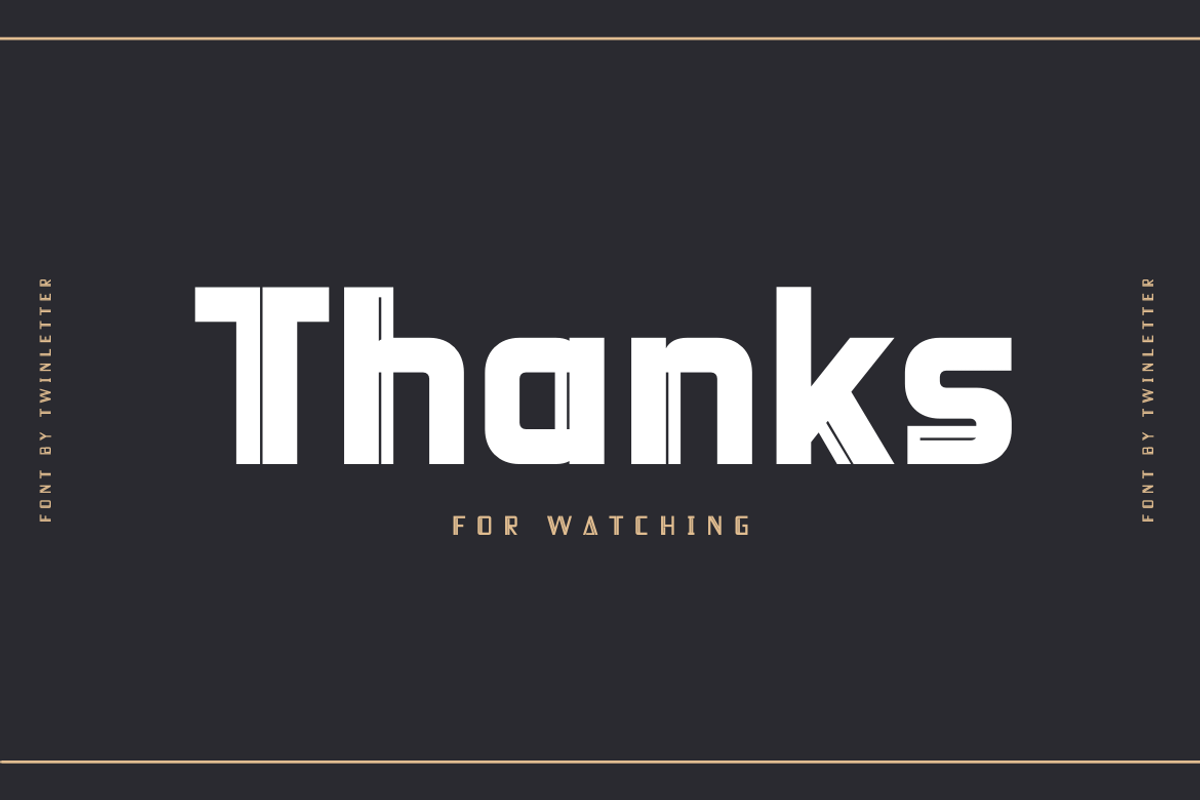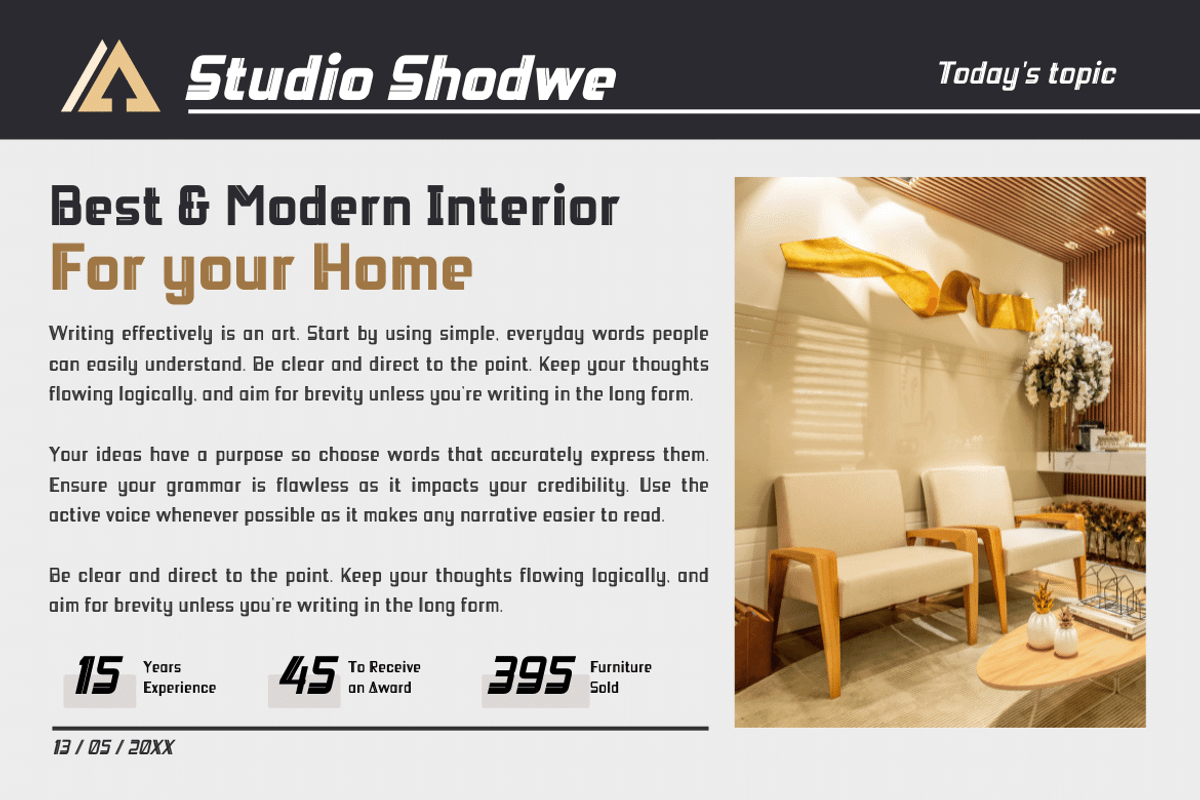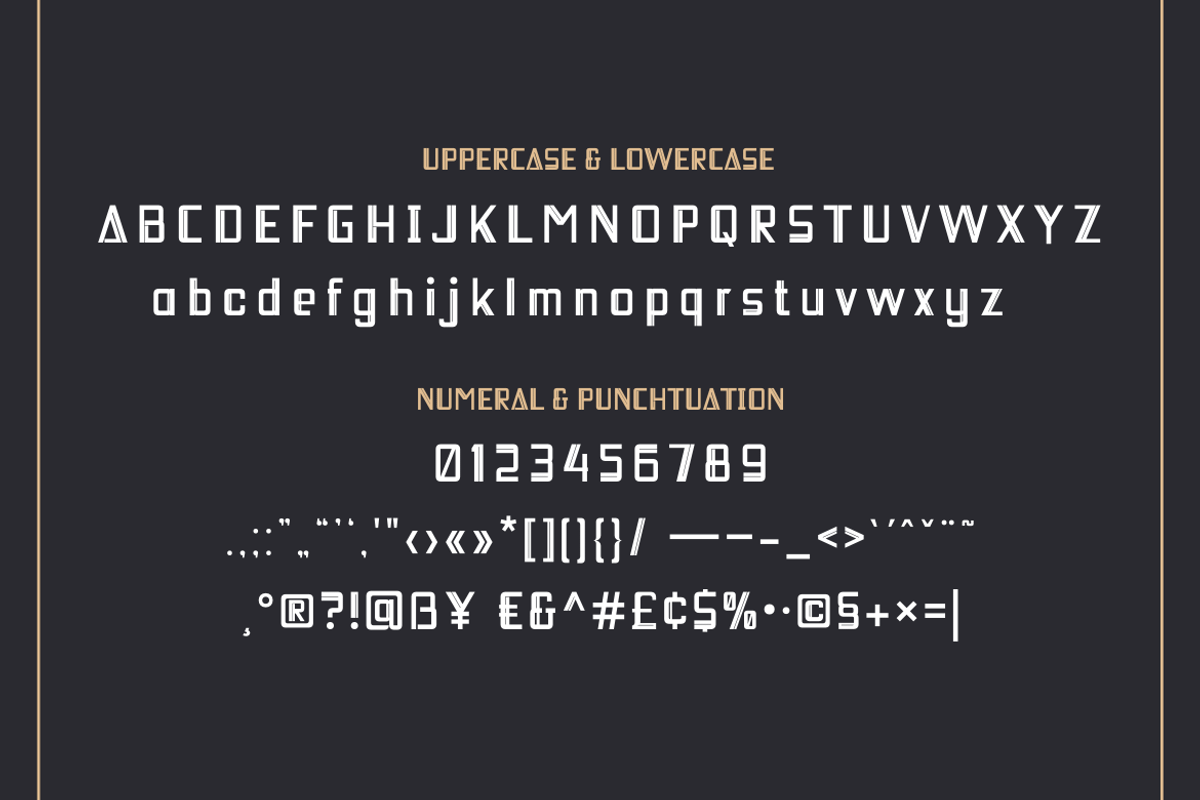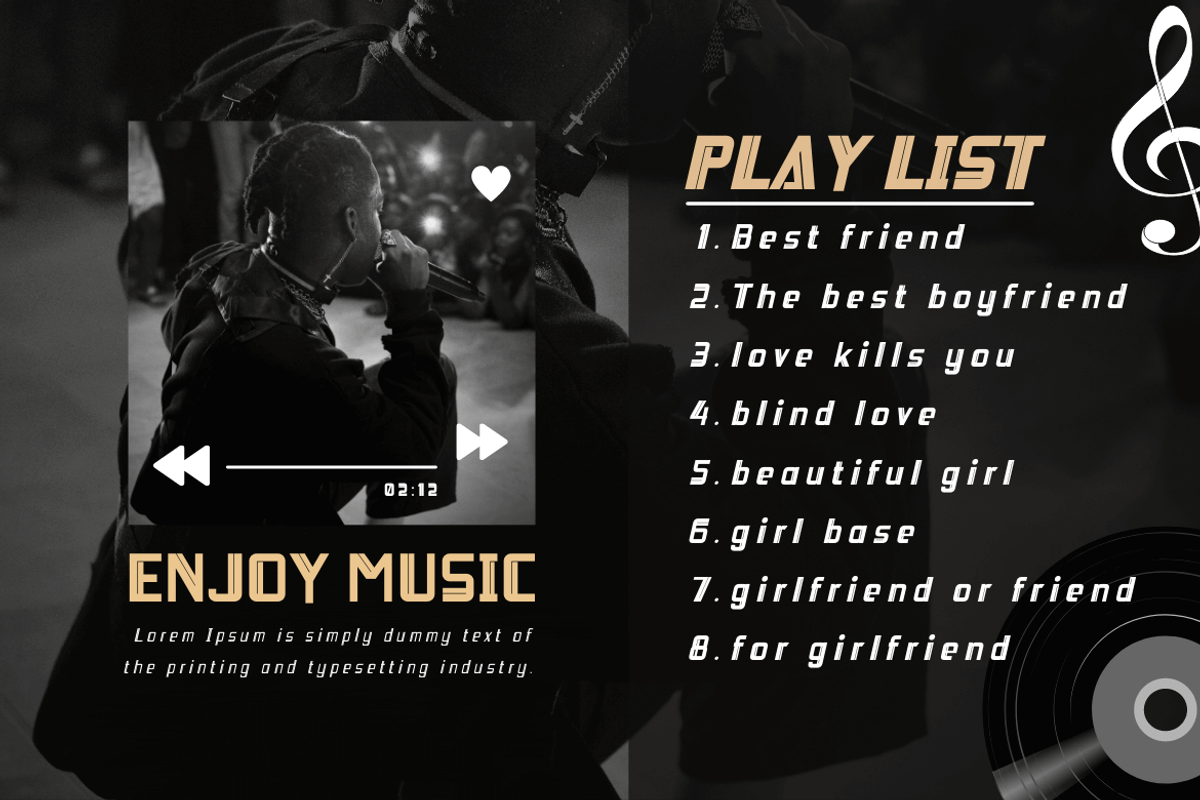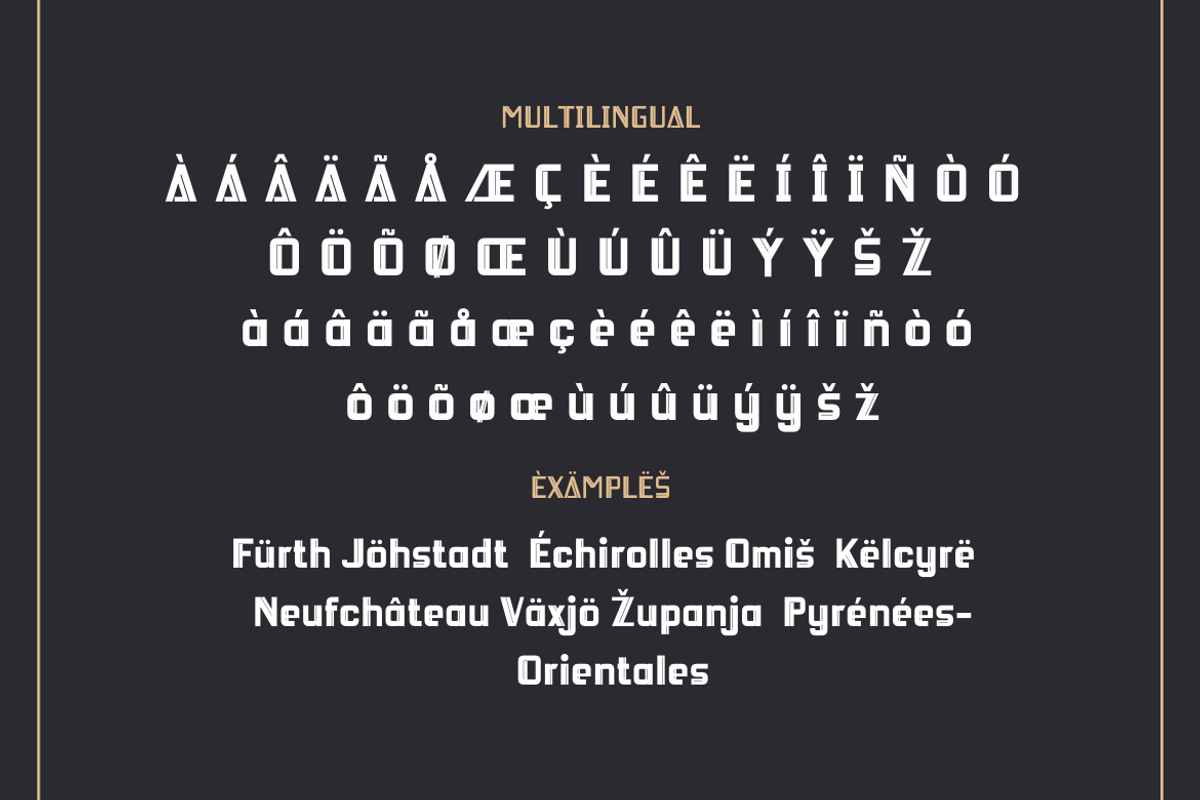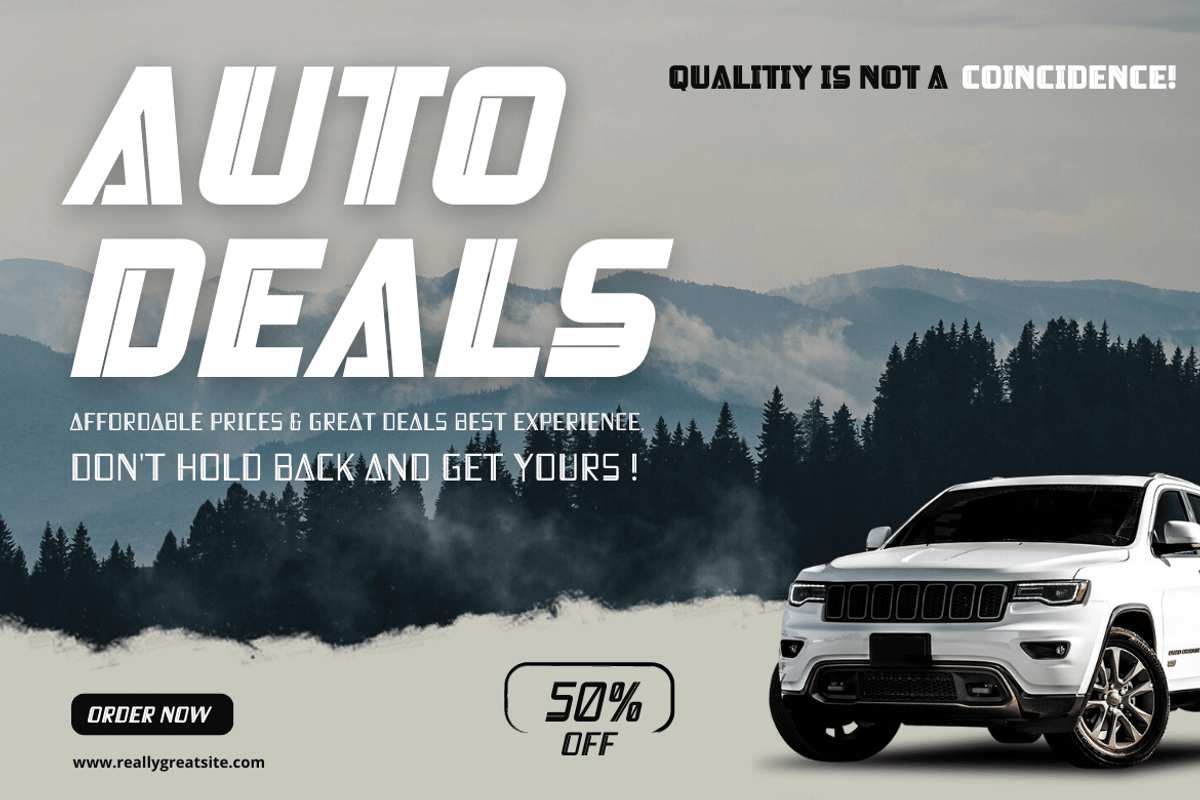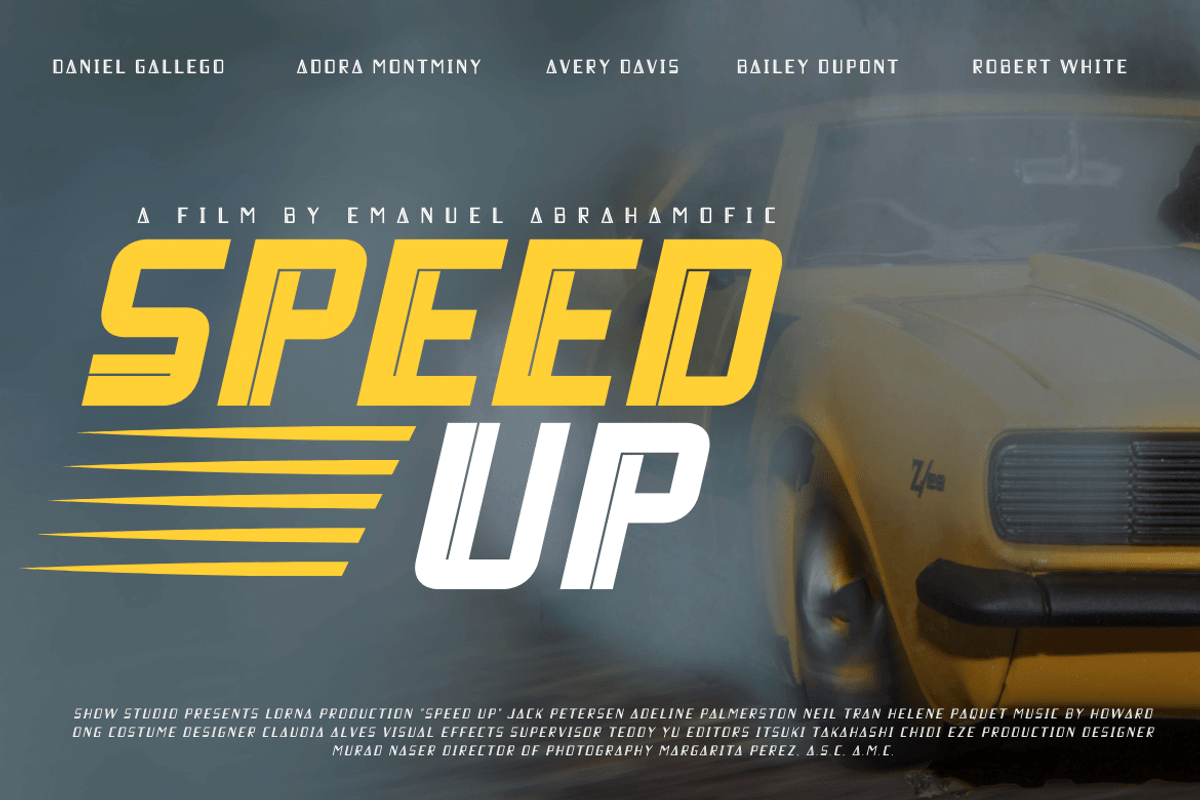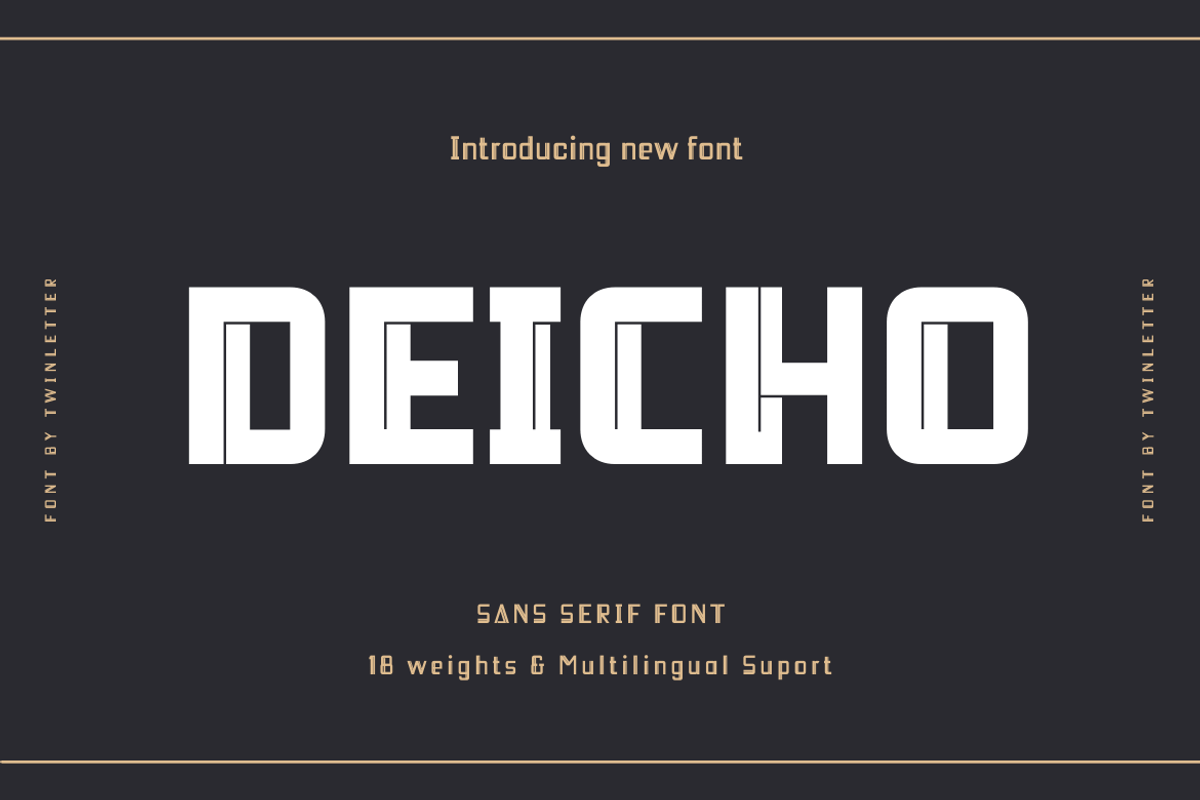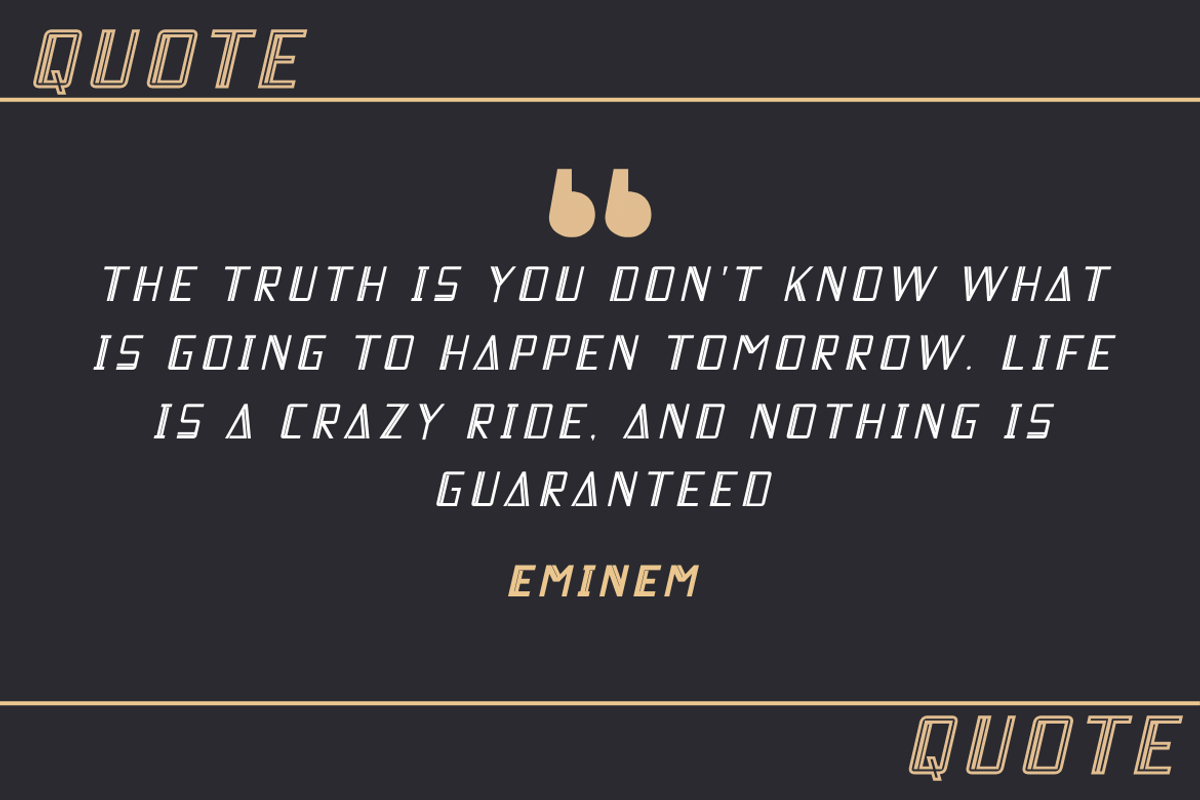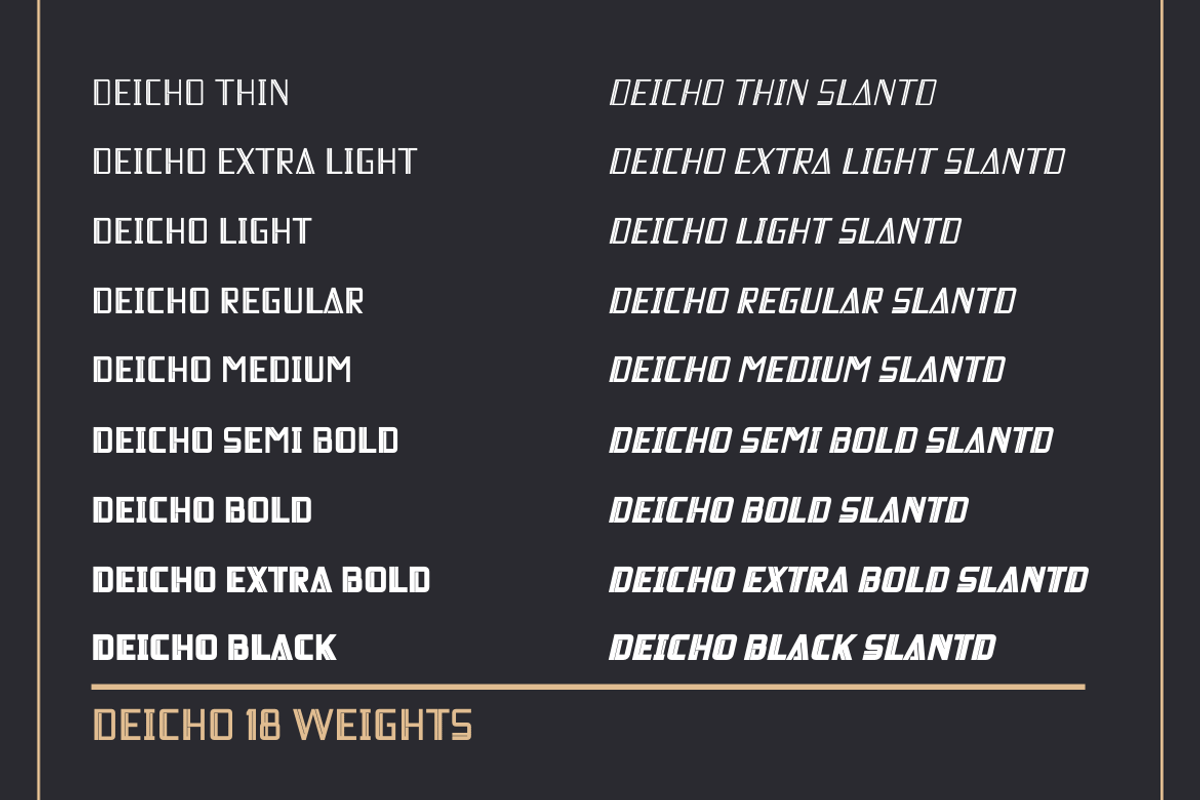
Deicho
Do you need a beautiful, one-of-a-kind font for your business, social media, or other purposes? Then this package is ideal for you. Deicho San Serif is a premium font family that comes in 18 different styles. Designed to assist you in creating visually stunning projects of any kind. Its one-of-a-kind shape will make your project stand out to your audience.
of course, your various design projects will be perfect and extraordinary if you use this font because this font is equipped with a font family, both for titles and subtitles and sentence text, start using our fonts for your extraordinary projects.